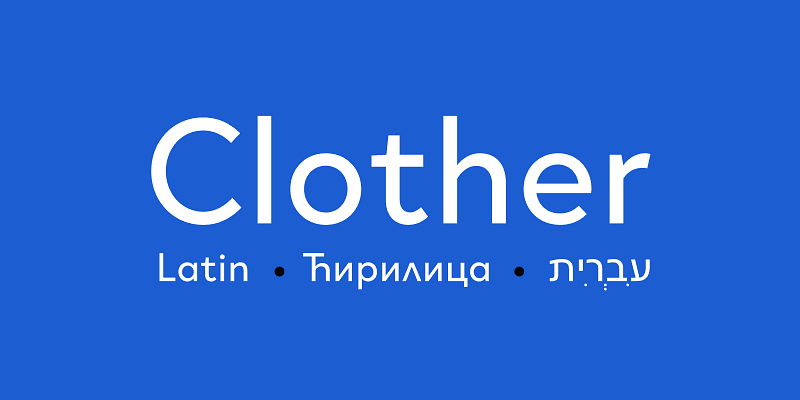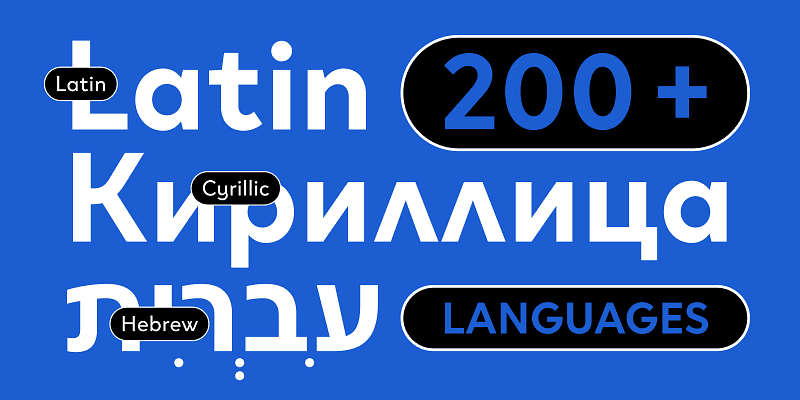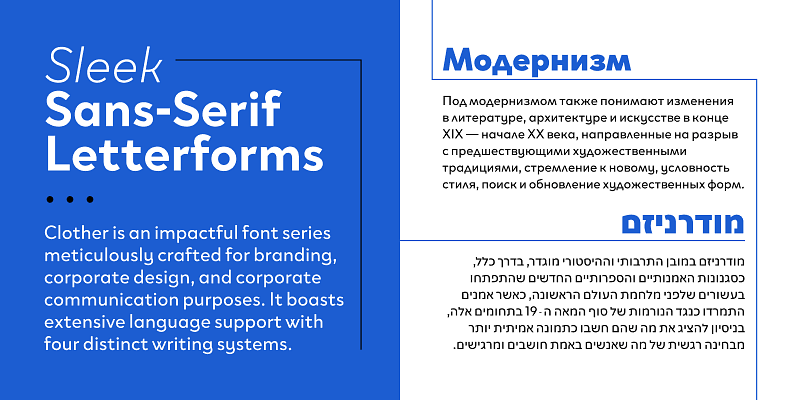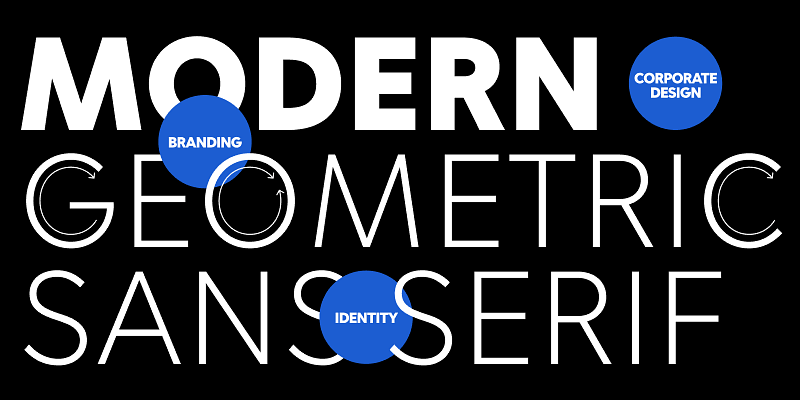
Clother is a geometric sans serif family supporting Cyrillic, Hebrew, and Latin, designed to deliver a consistent visual identity for branding, corporate design, and communication. Thanks to details that distinguish it from similar typefaces, this cohesive graphic vocabulary enables businesses to reach global markets seamlessly. The low-contrast, almost monolinear letter shapes keep text clean and professional with a modern personality, well-suited for reports, presentations, and internal communication.